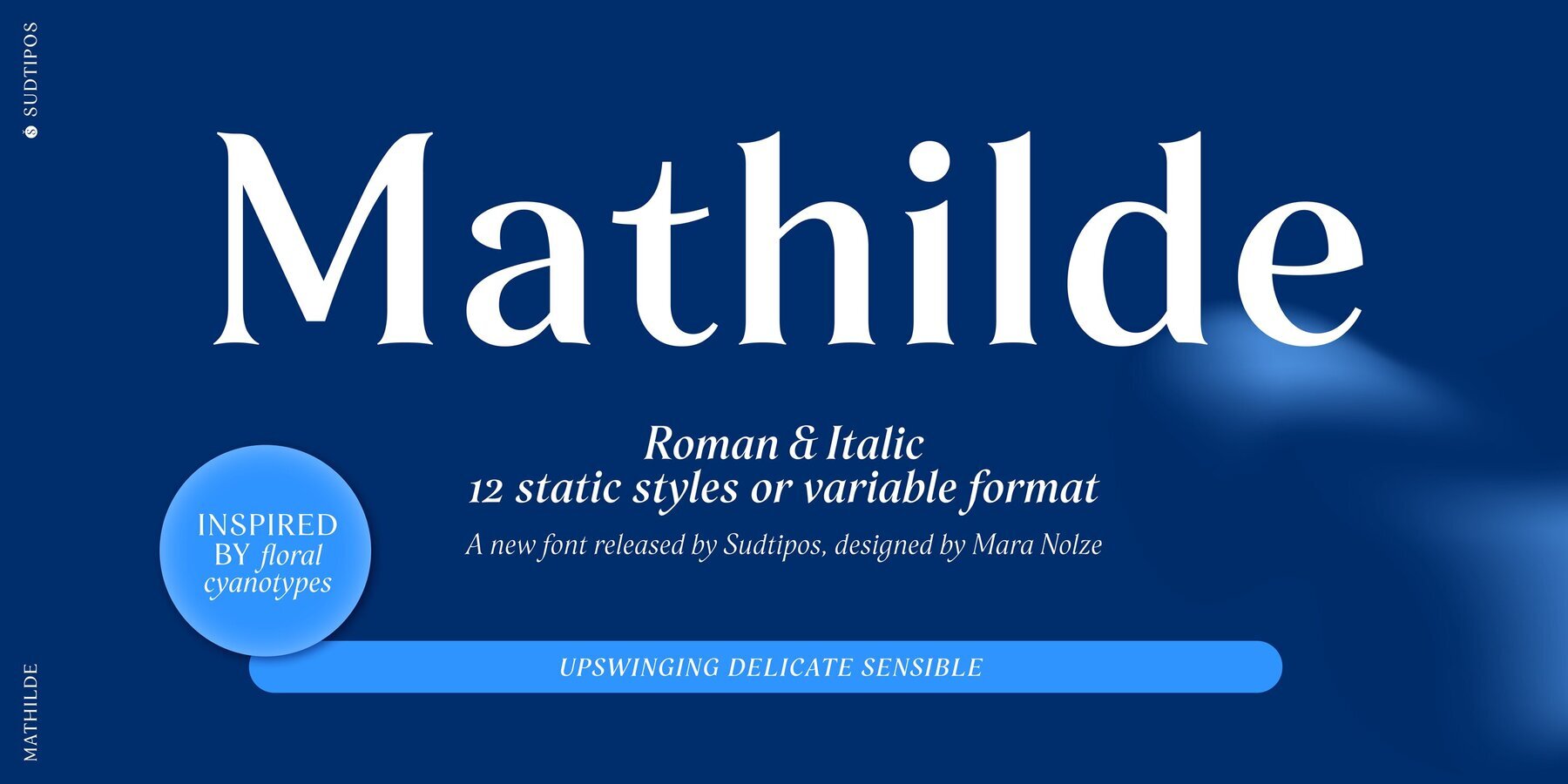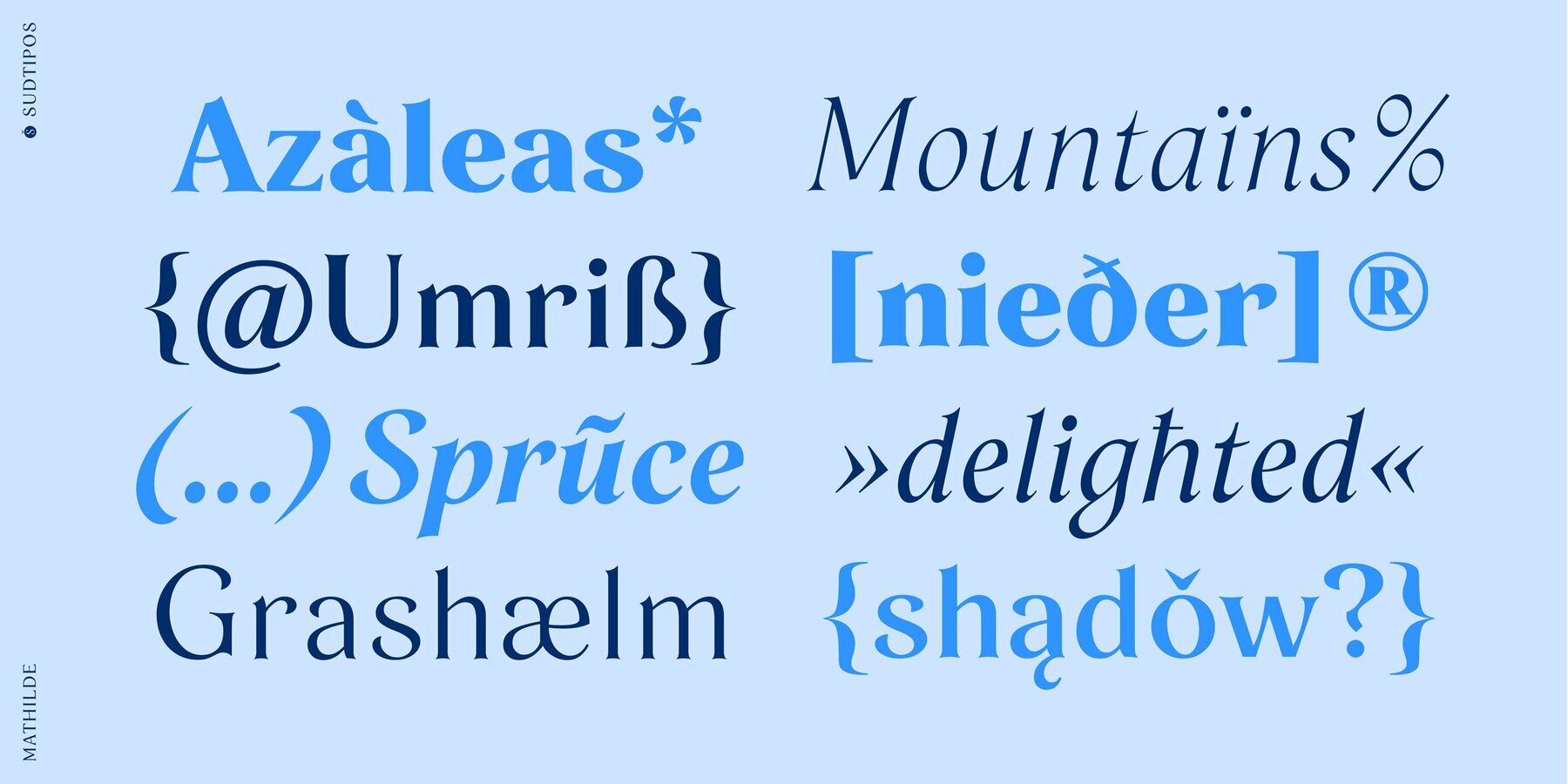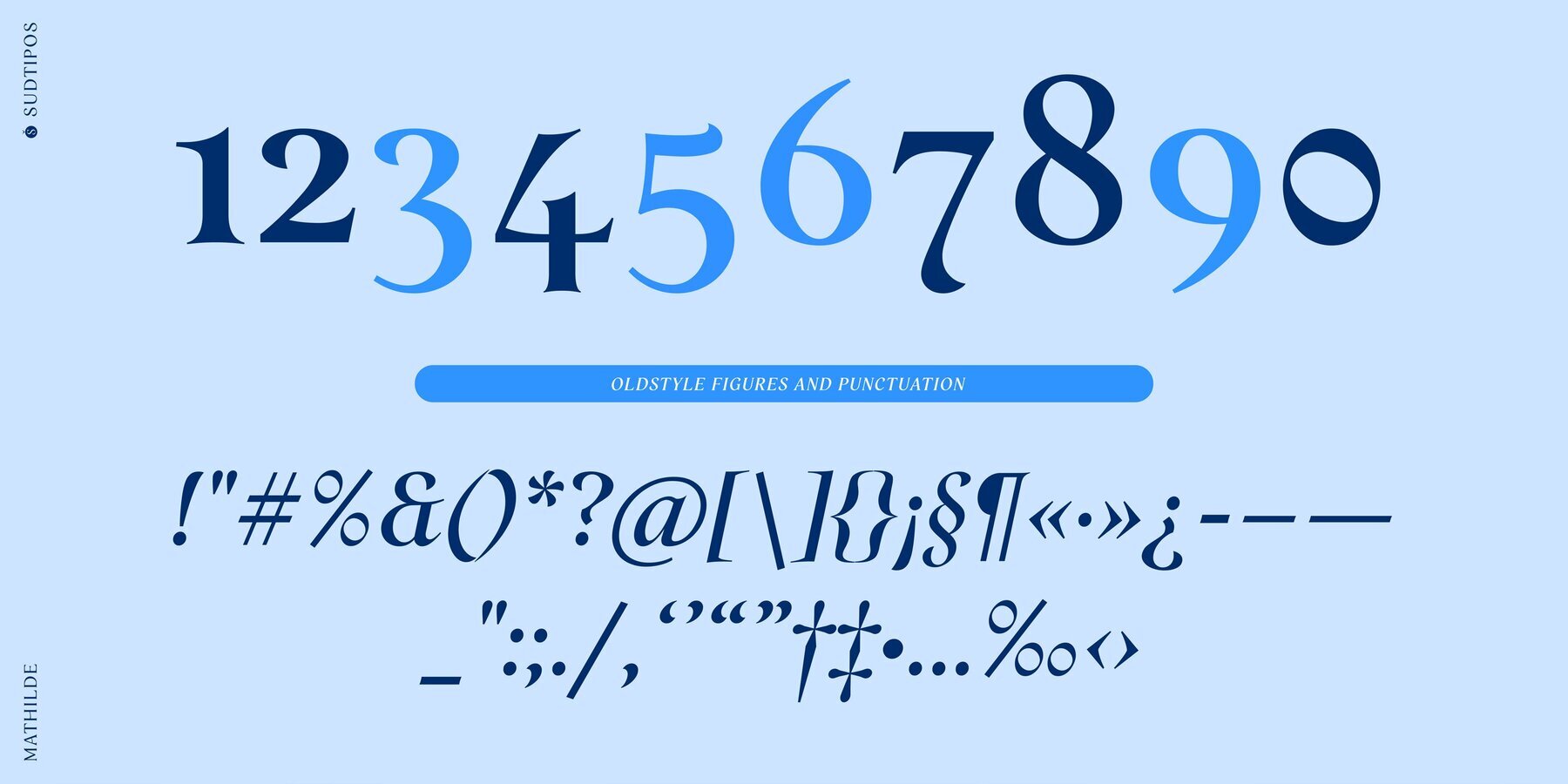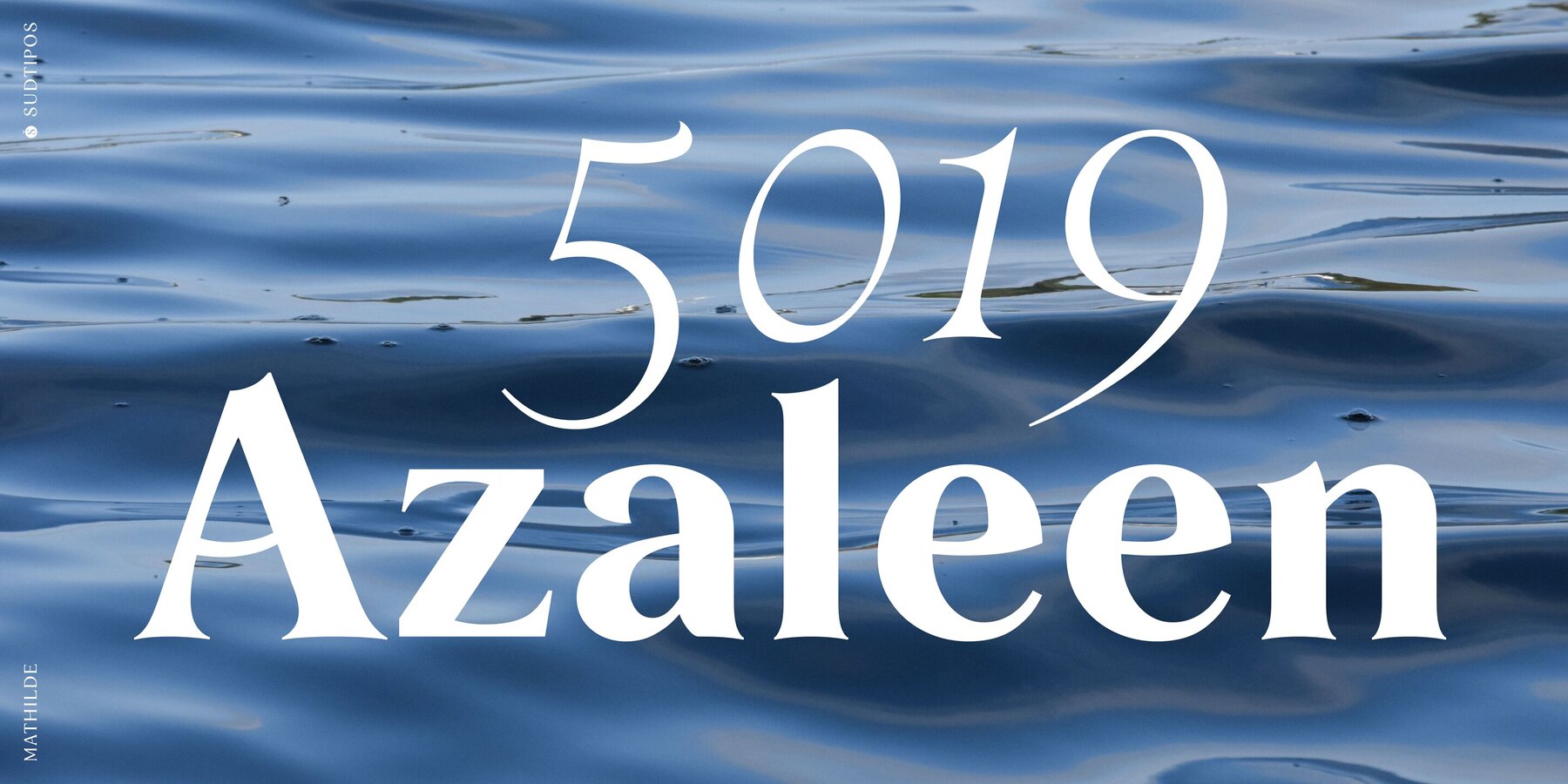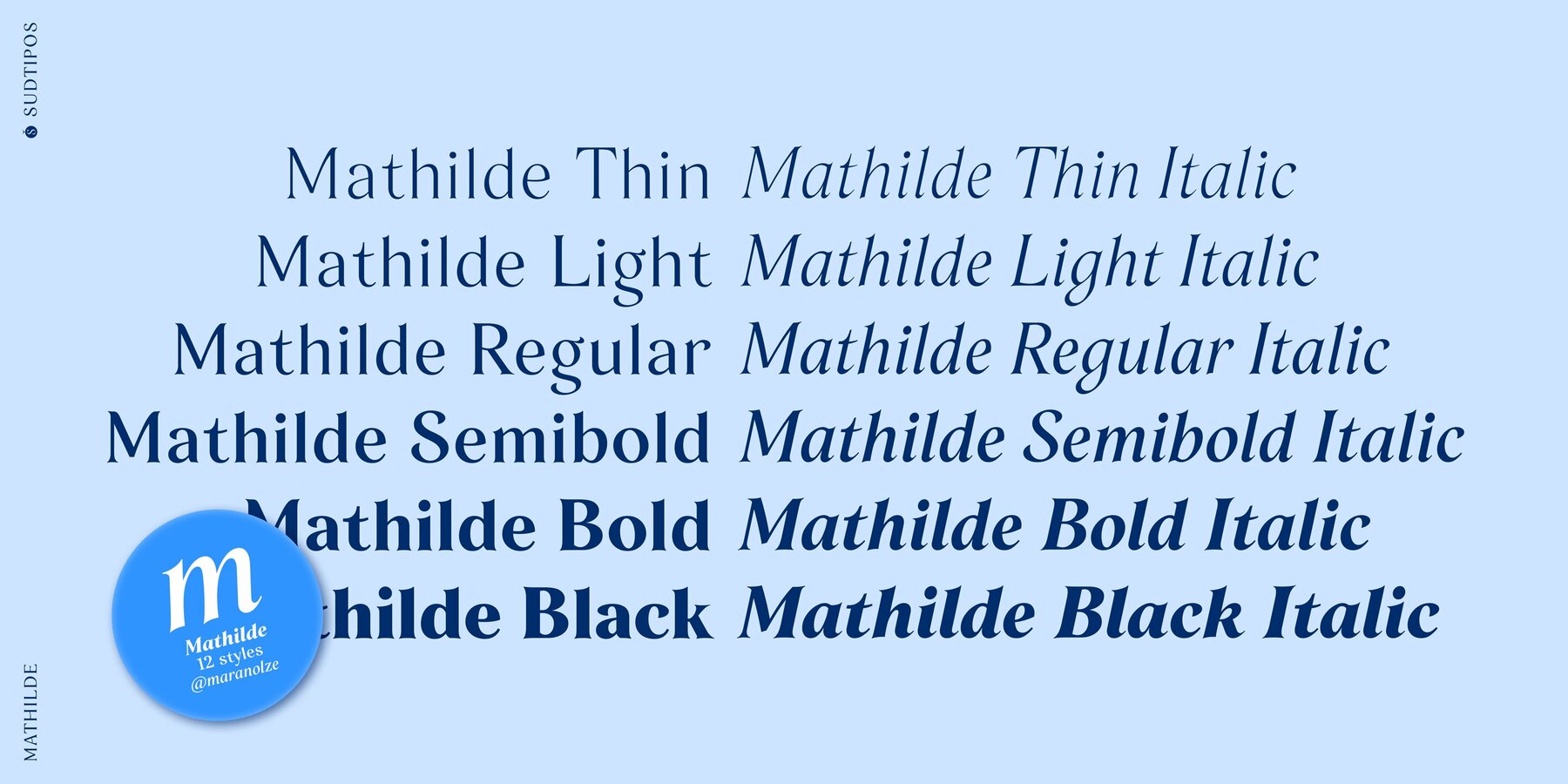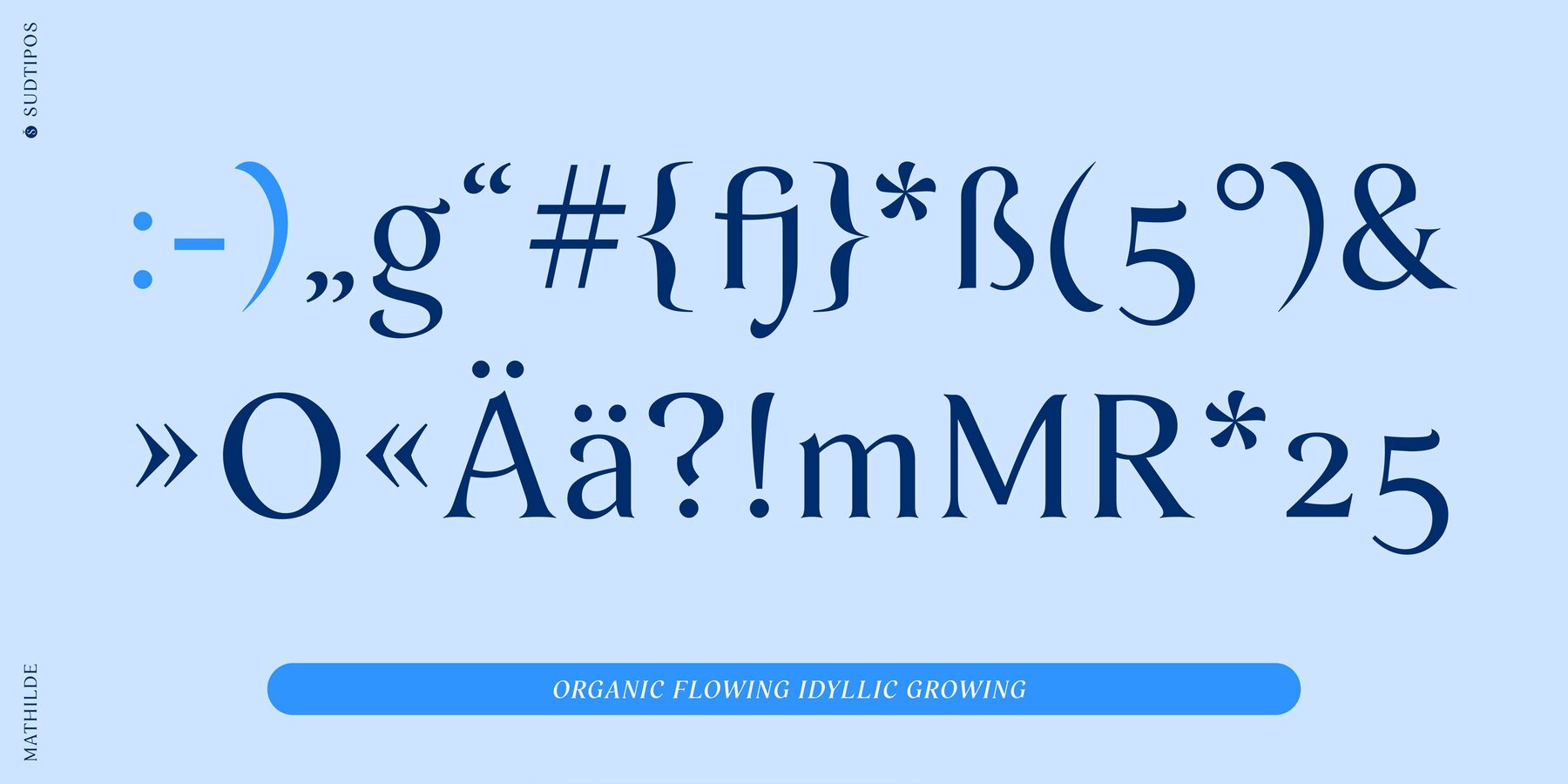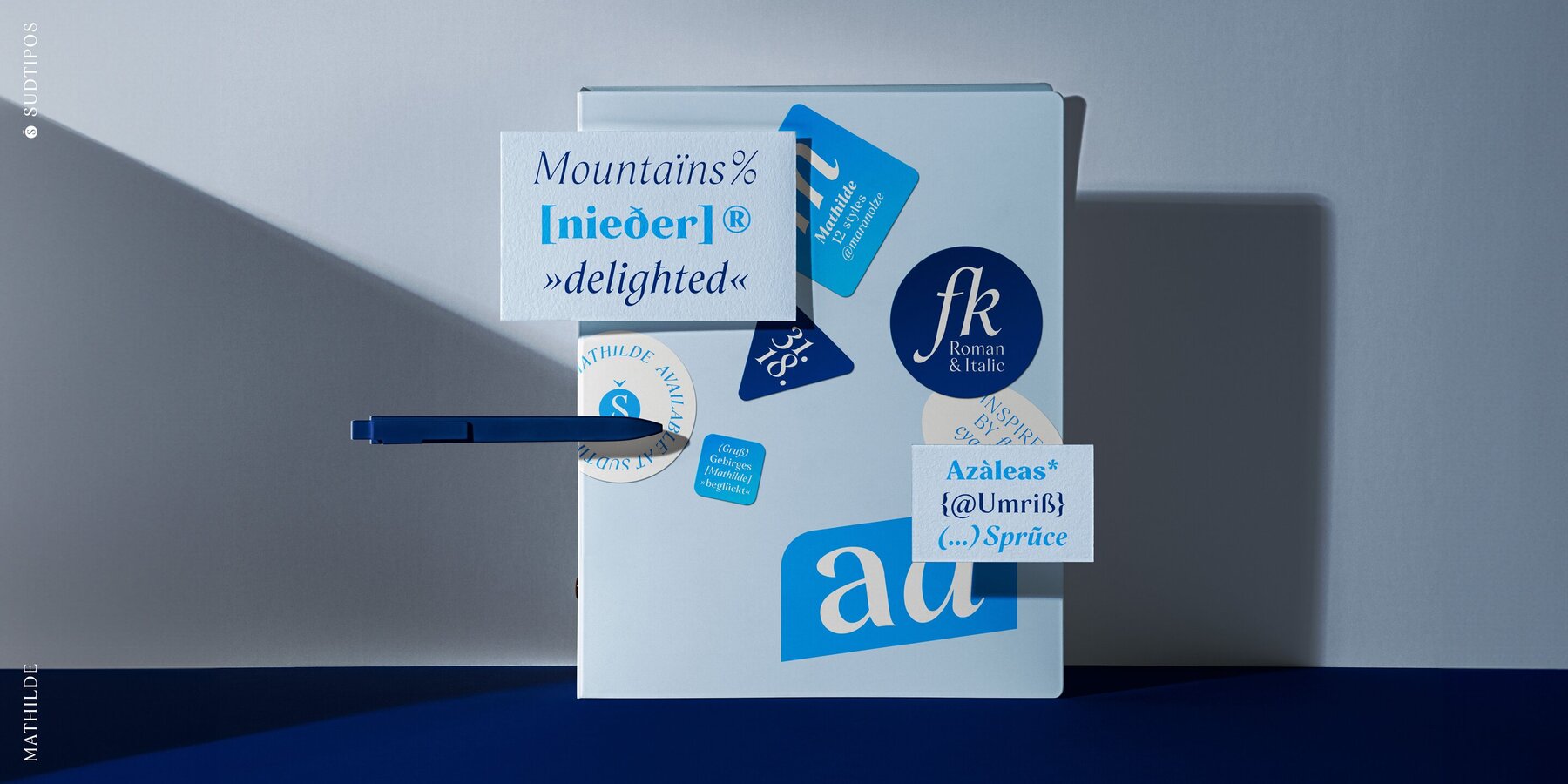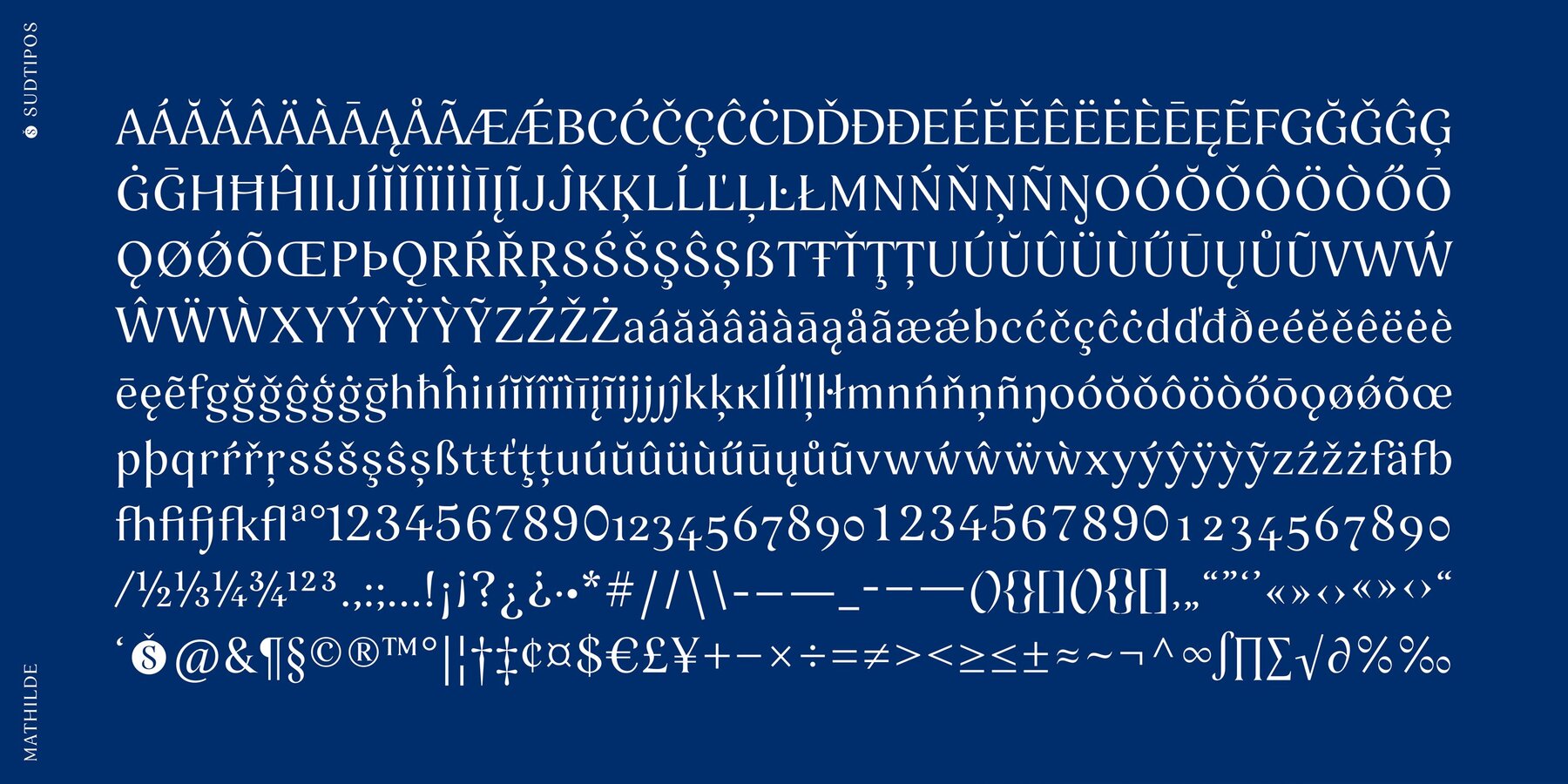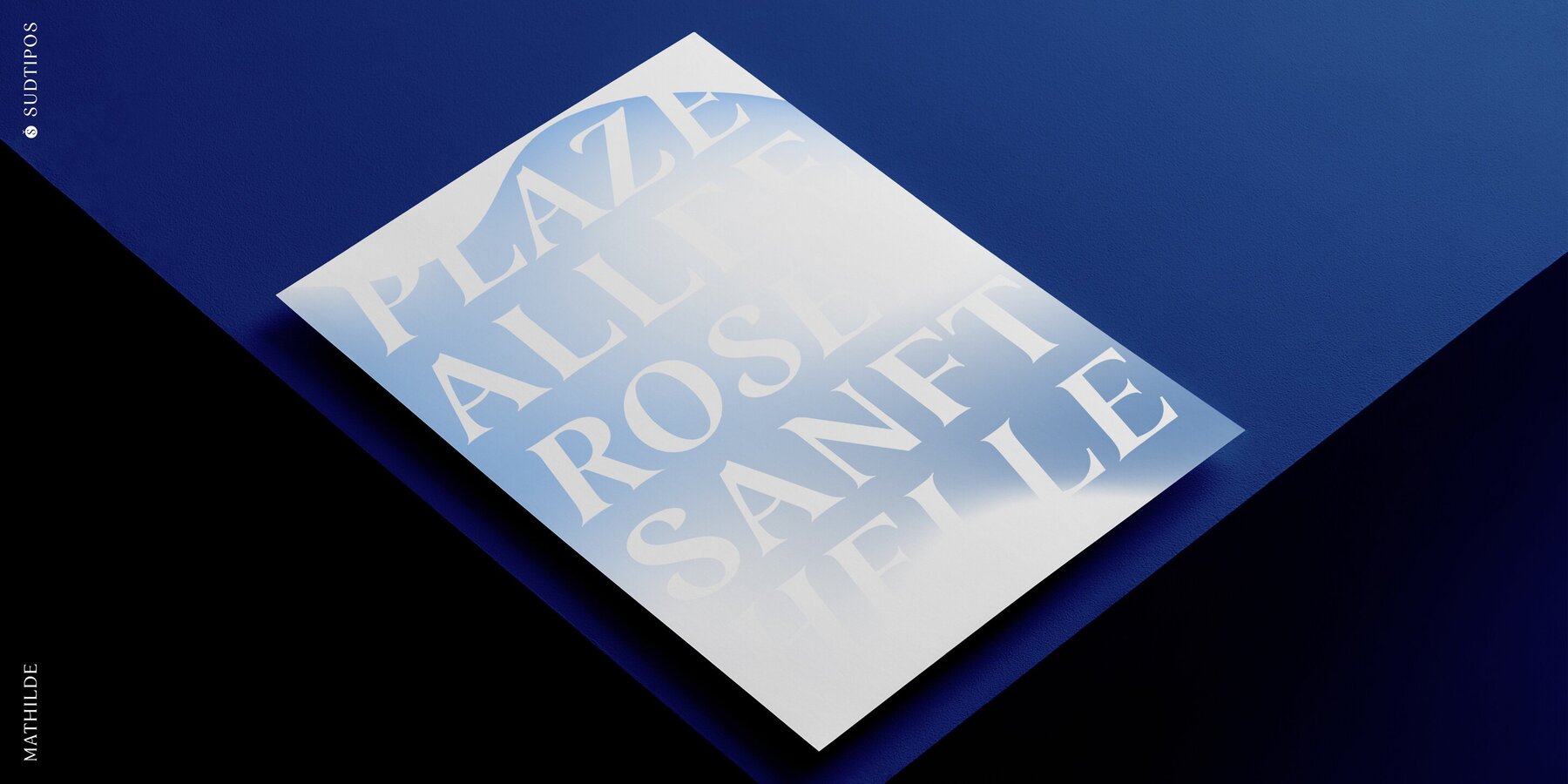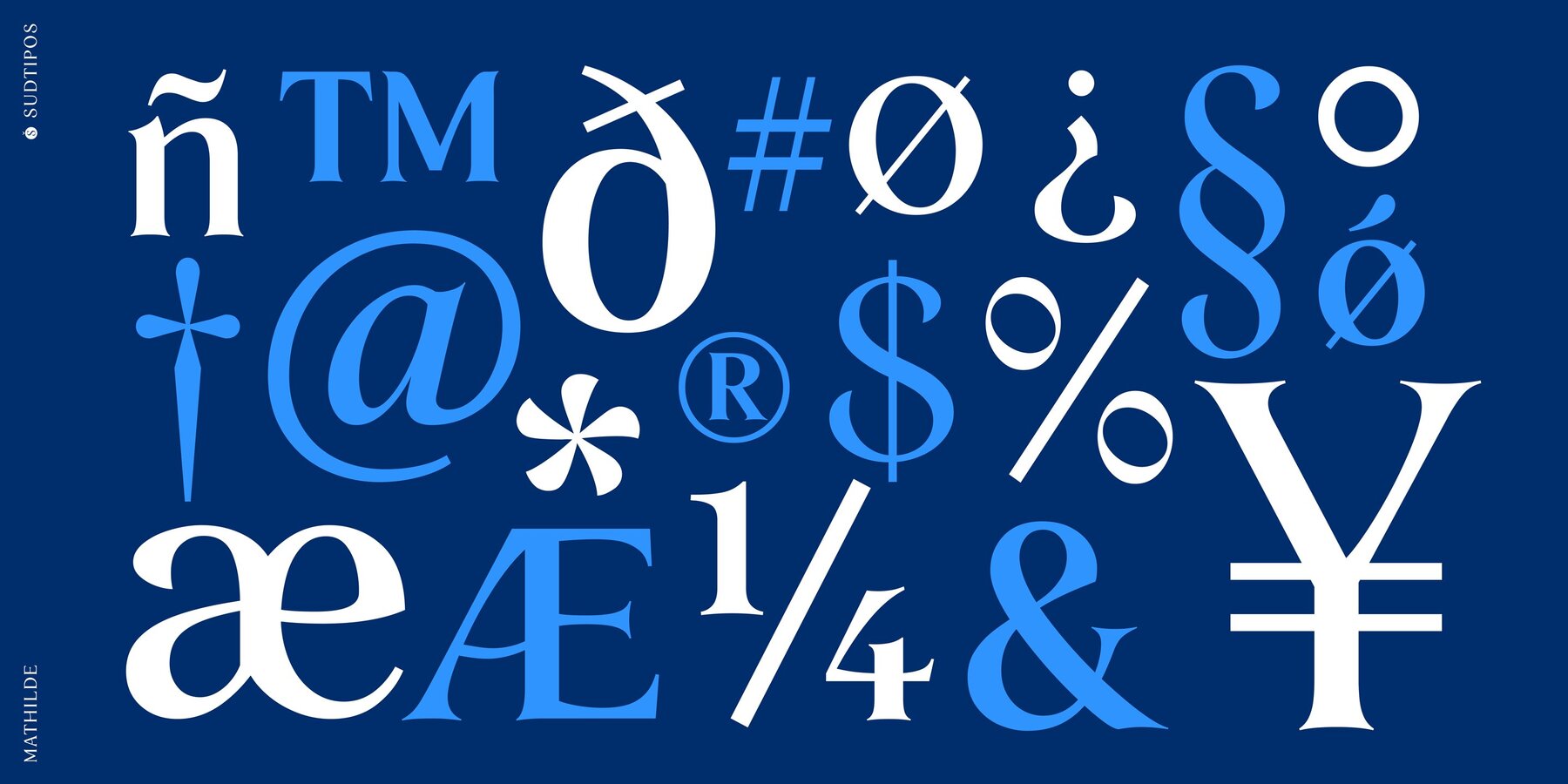
Mathilde Font
Mathilde is inspired by floral cyanotype experiments and draws a connection to a literary character often associated with roses. With its thorny serifs, the font seamlessly aligns with this comparison.
Mathilde is characterized by a combination of sharp, small elements with graceful, flowing shapes. The dynamic interplay of convex and concave lines, along with slanted stroke terminals and pointed droplet-shaped stroke ends, contribute to the unique aesthetic.
Offering a range of six weights and matching italics, Mathilde covers a wide variety of stylistic preferences.
Its details make it particularly compelling for headlines that convey an organic and growing message. Moreover, Mathilde effortlessly transitions into creating a harmonious and flowing appearance in continuous text. Whether employed in editorial design, branding, or packaging, the font infuses any project with an idyllic and sensible energy, adding a delicate touch to the visual narrative.